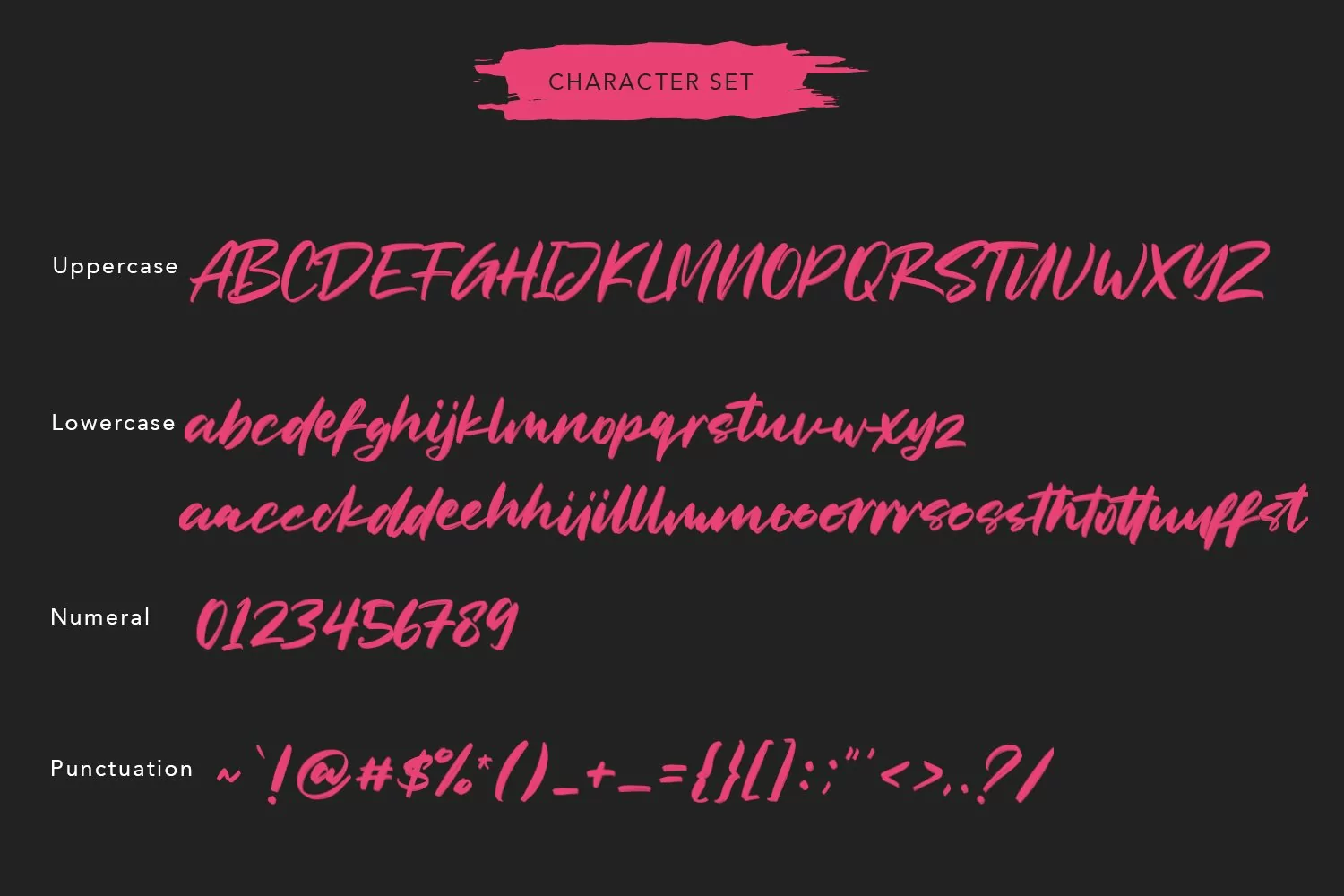
Nordstall is SVG font, with natural rough brush stroke, slanted and strong character. It has Opentype features ligatures of character, To give you an extra creative work. Nordstall SVG font support multilingual more than 100+ language. This font is good for logo design, Social media, Movie Titles, Books Titles, a short text even a long text letter and good for your secondary text font with sans or serif. Make a stunning work with Nordstall SVG font.